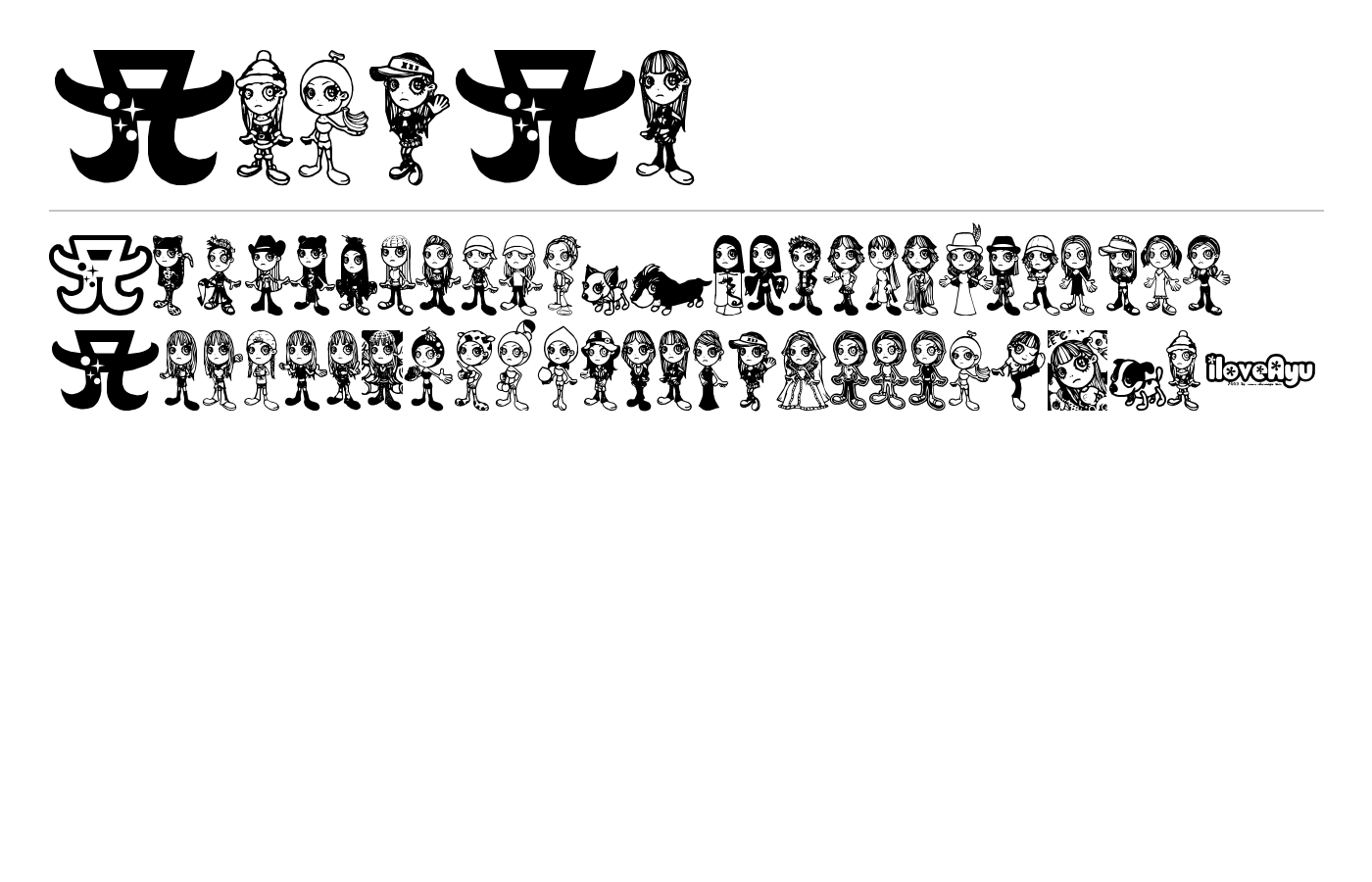
Ayupan Font is a playful and whimsical typeface that blends cartoon-like character illustrations with bold, stylized letterforms. It exudes a fun, youthful energy perfect for creative projects, children’s media, or any design needing a lively and unique personality. This font works especially well in logos, posters, or branding where a charming and eye-catching visual presence is desired.